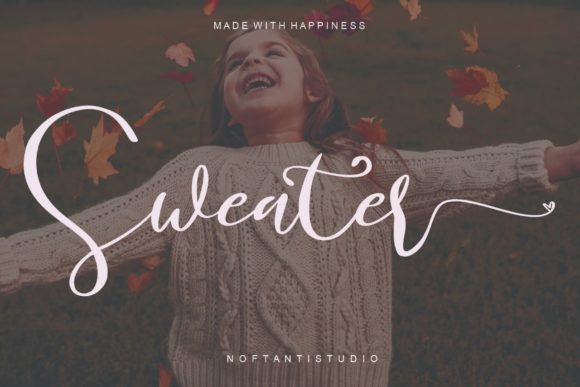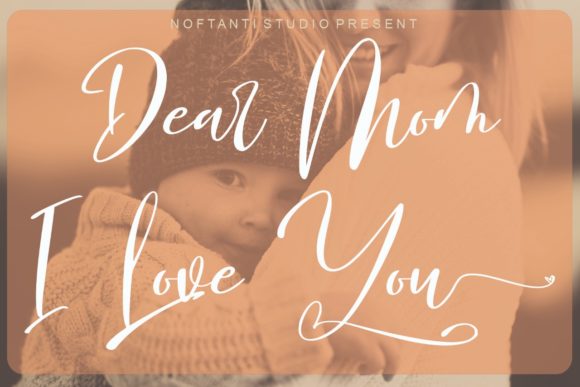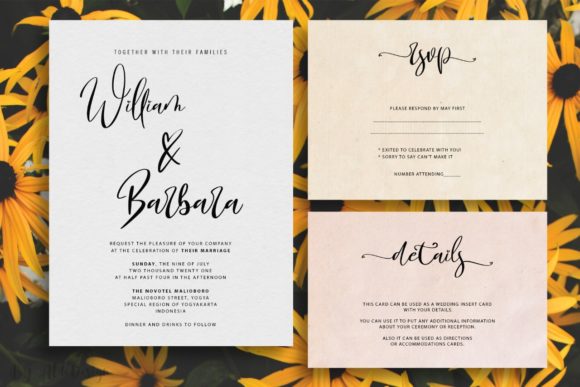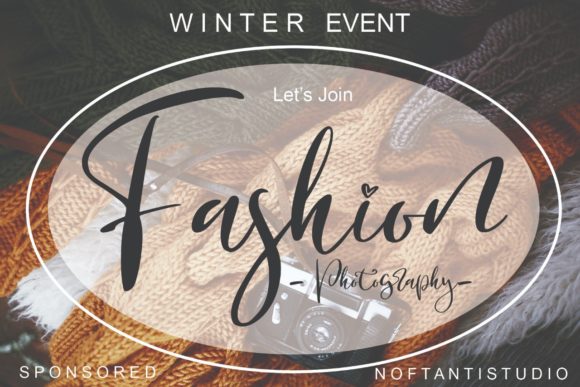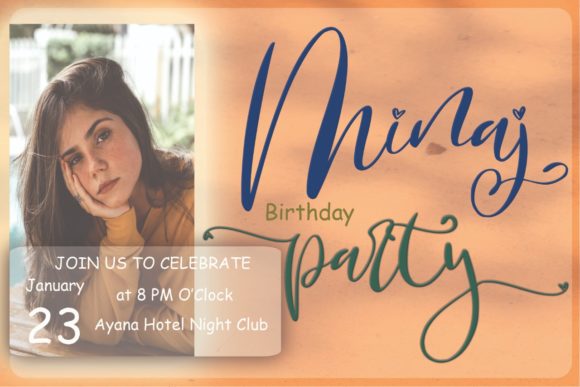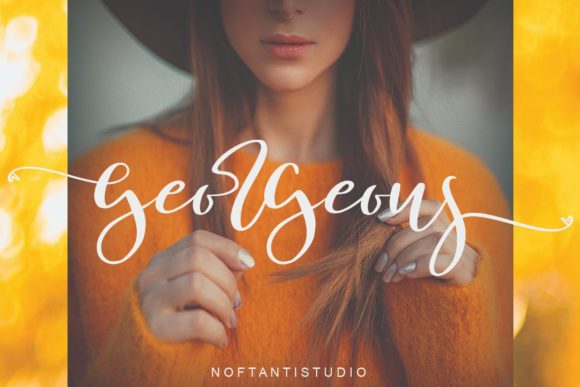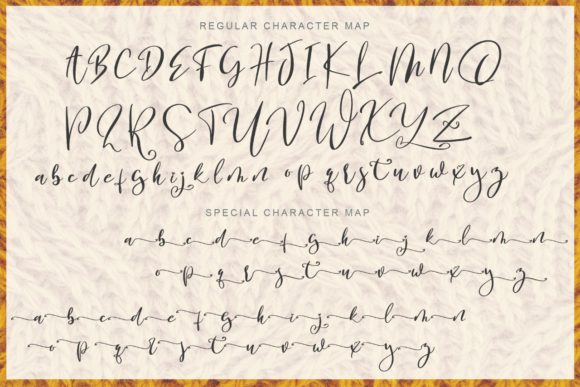
Sweater Font
About Sweater Font
Sweater is a gorgeous and lovely script font. This fantastic is best suited for headlines of all sizes, as well as for blocks of text that have both maximum and minimum variations. Whether it’s for web, print, moving images or anything else – Sweater will look spectacular.